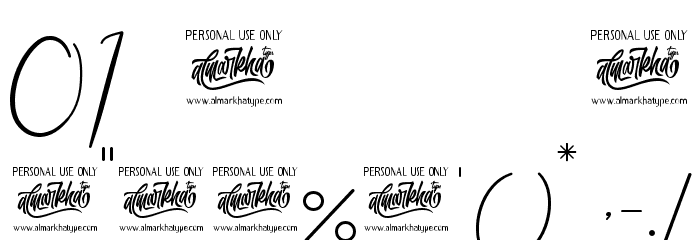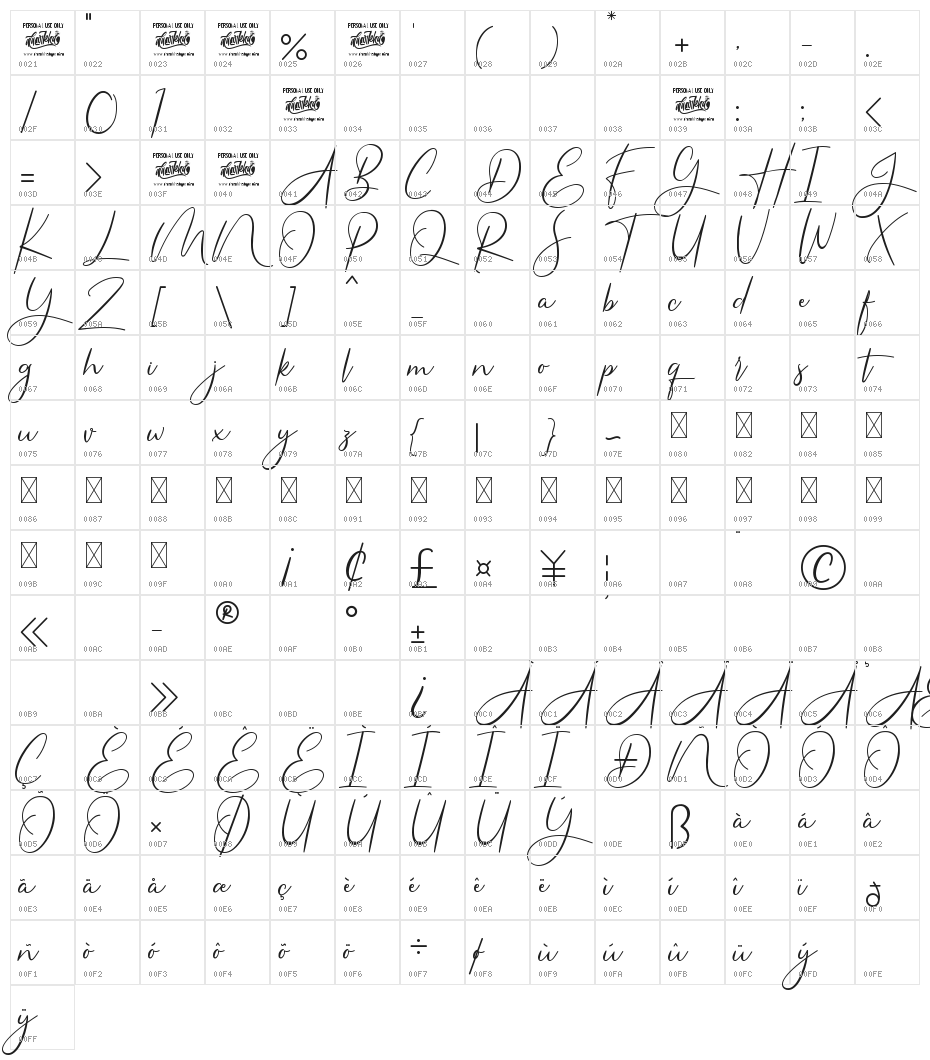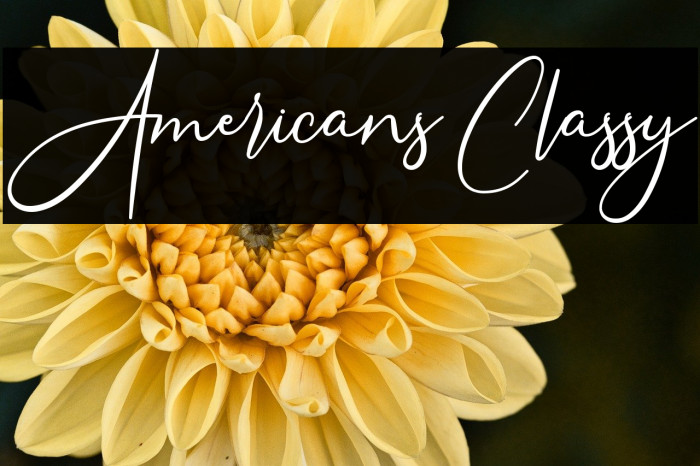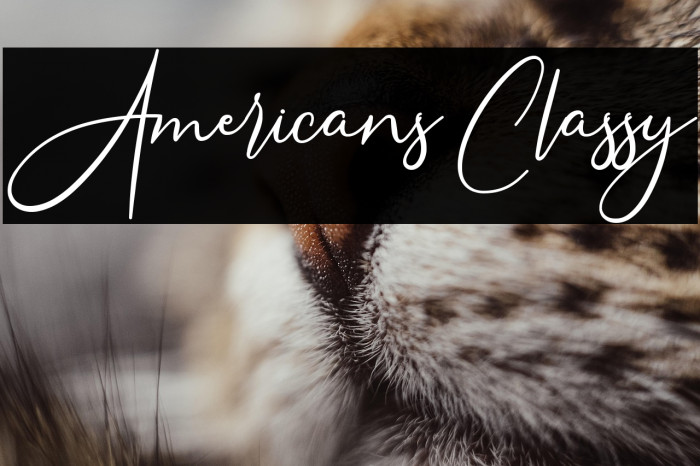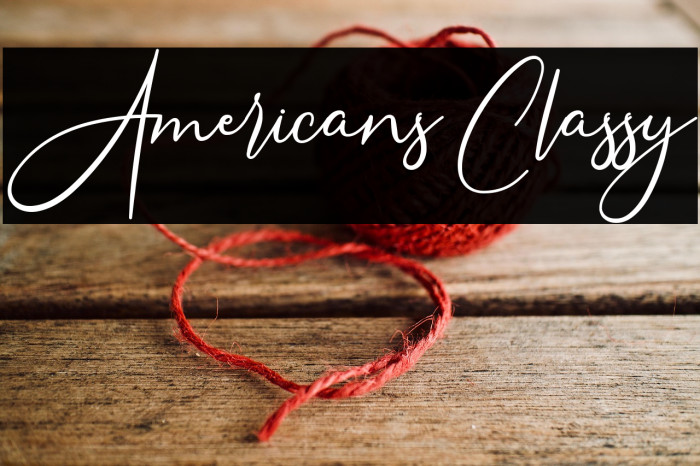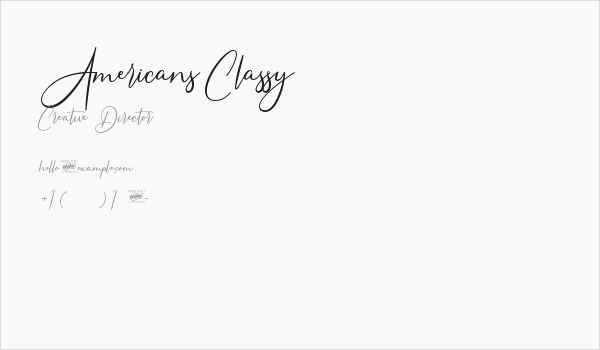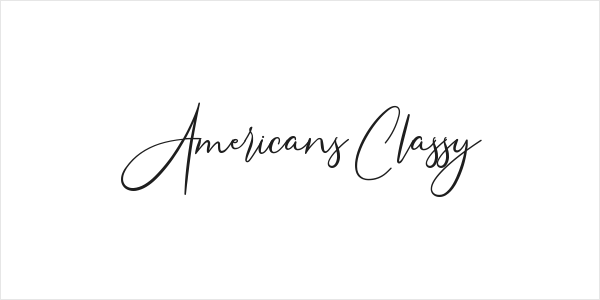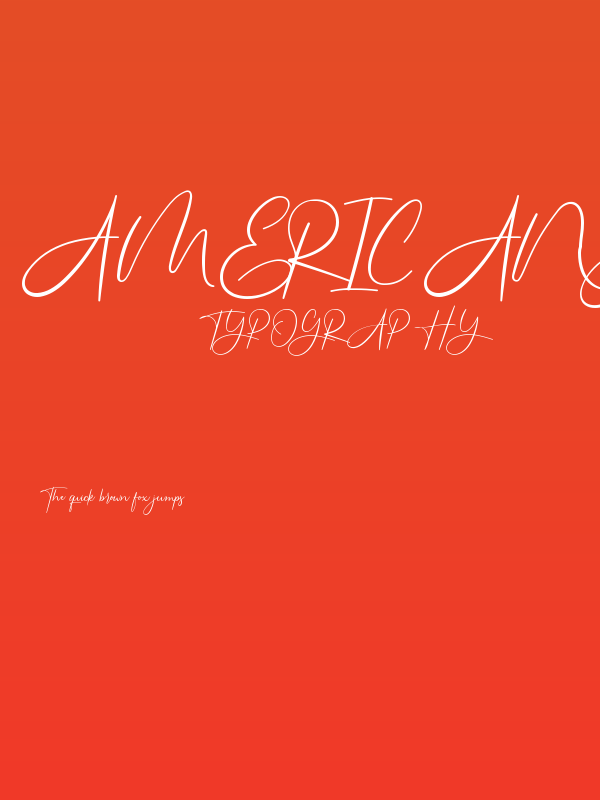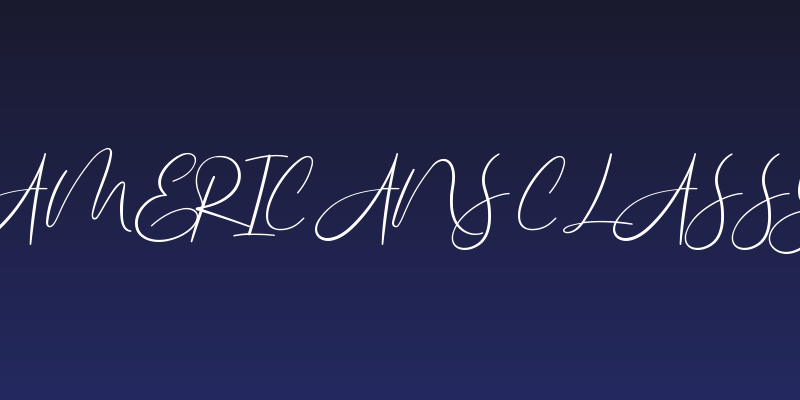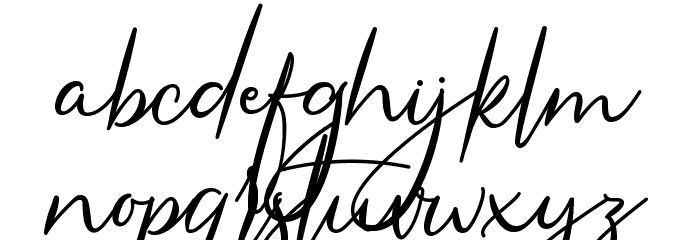
Americans Classy Font
Americans Classy Description
This font features a sophisticated and elegant script style, characterized by its flowing, cursive letterforms. The uppercase letters are tall and slender, with graceful loops and swashes that give a sense of movement and fluidity. The lowercase letters maintain a consistent style, with some characters exhibiting unique flourishes that add a touch of flair. The numerals are designed to complement the overall aesthetic, maintaining the same elegant and stylish appearance. Special characters are included, each crafted with the same attention to detail and artistic flair. This font exudes a sense of class and refinement, making it ideal for projects that require a touch of elegance.
| Proposed Projects | Ideal for wedding invitations, luxury branding, elegant stationery, and high-end product packaging. |